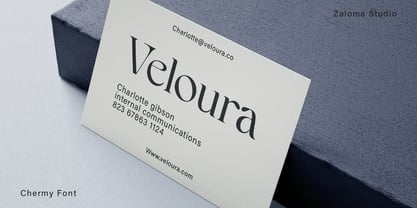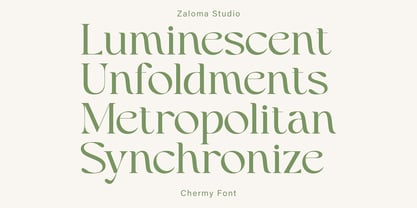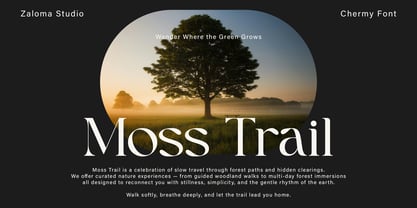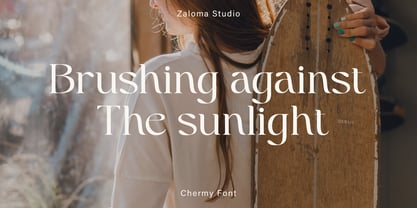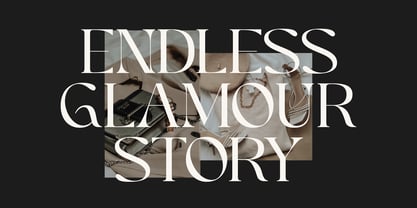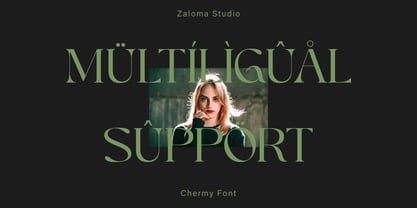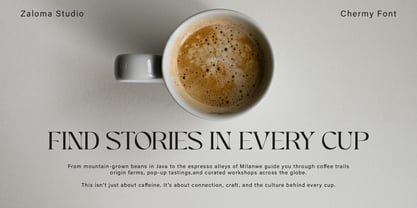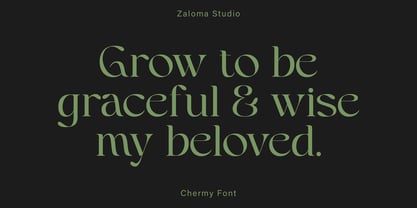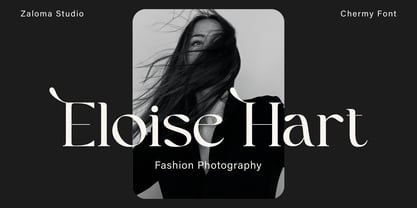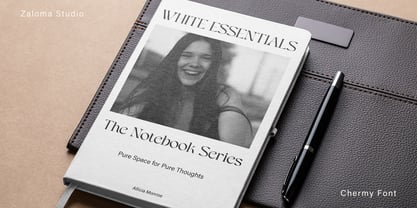
Chermy
by Zaloma Studio
The Chermy Font Family was designed by Mahyudi and published by Zaloma Studio. Chermy contains 1 styles. More about this family
Chermy is a modern display serif typeface that blends timeless elegance with a contemporary touch. Designed by Zaloma Studio, Chermy features smooth curves, high contrast strokes, and refined details that bring a sense of luxury and sophistication.
Perfect for editorials, branding, logos, fashion, and any design project that calls for a bold and elegant statement. With unique character shapes, sharp serifs, and graceful terminals, Chermy stands out with both charm and readability.